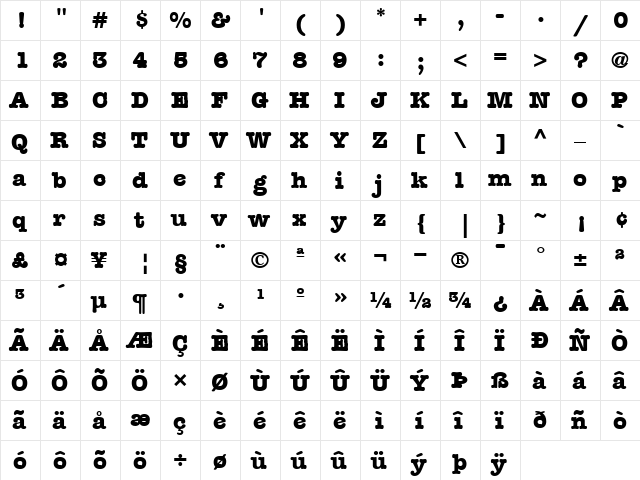
ITCAmericanTypewriterAlternate Bold Font Preview
Design Context for ITCAmericanTypewriterAlternate Typeface
ITCAmericanTypewriterAlternate uses fixed-width spacing throughout, giving it the structured, systematic character associated with coding environments and technical documentation. The heavy weight commands attention and anchors typographic hierarchies.
A natural fit for code editors, technical documentation, developer-focused branding, and terminal-inspired UI.
Pro Tip: Pair ITCAmericanTypewriterAlternate with a proportional sans for UI contexts where code-style labels and regular body copy need to coexist.